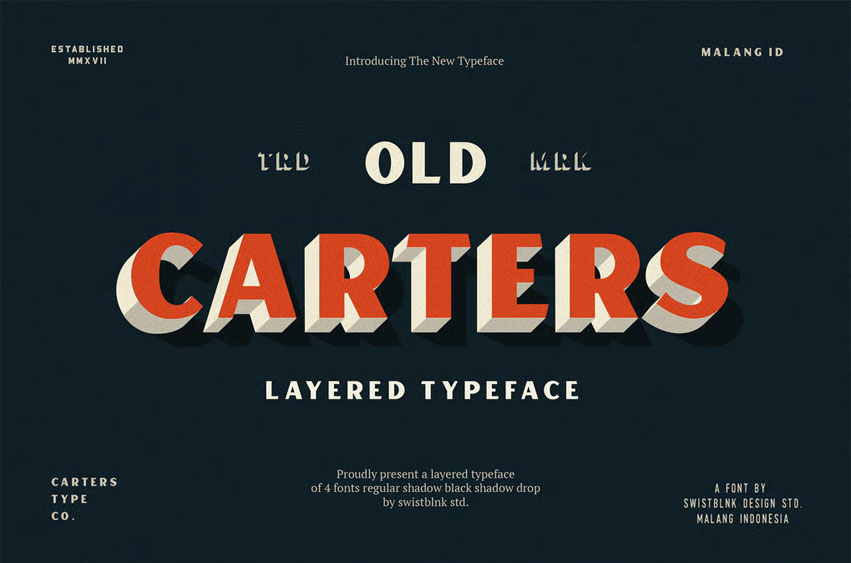
Carters Layered Font
Carters Layered Font is Layered Typeface inspired by old retro signage. with the layered system you can easily make more retro feel on your next project.
This collection come with layered type system, there are so many possibilities combination.
Carters Layered Features :
• Numerals & Punctuations
• Suitable for Headlines, Logotypes, Signs, Posters, Letterhead, T-Shirt and many more.